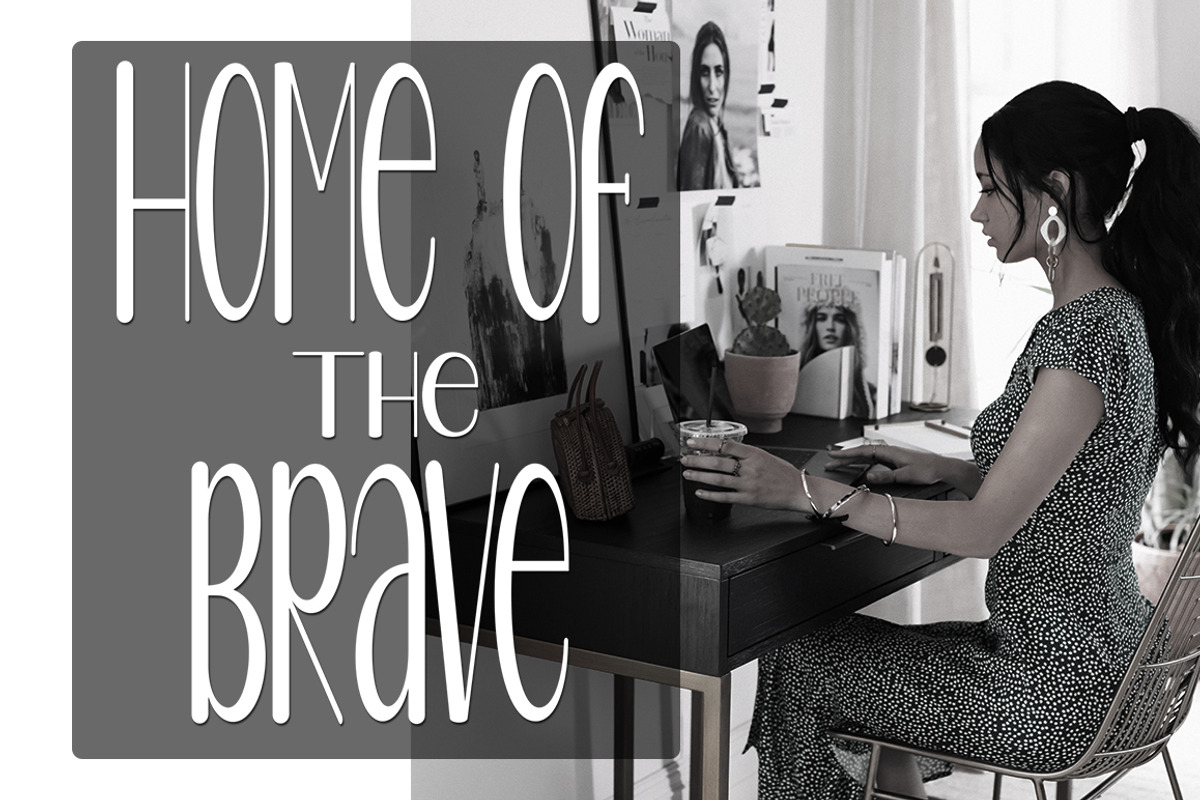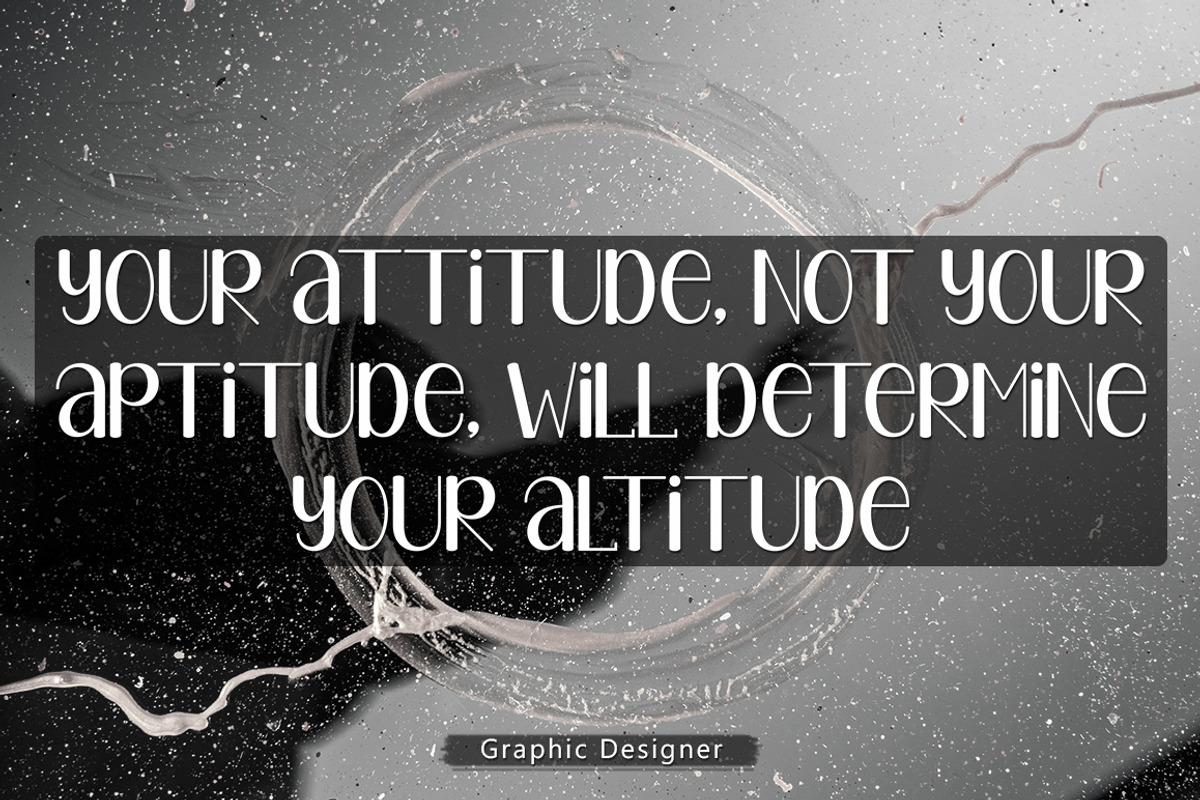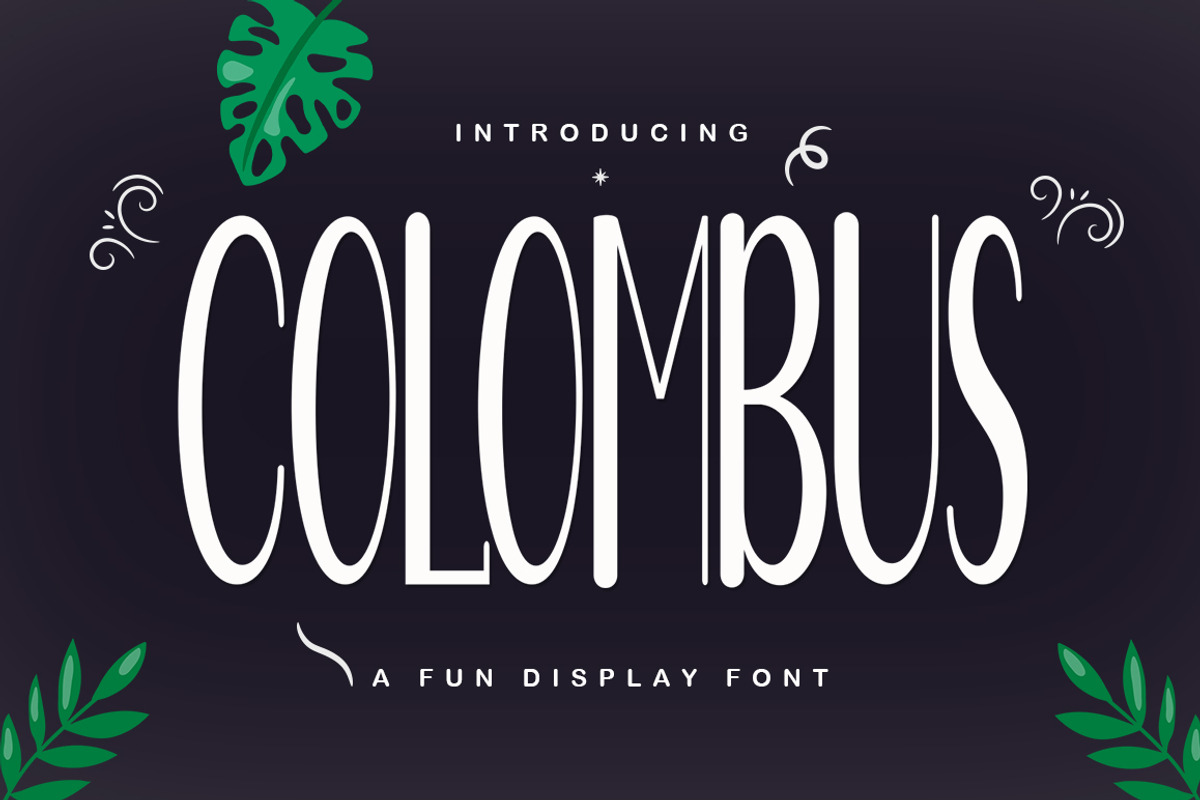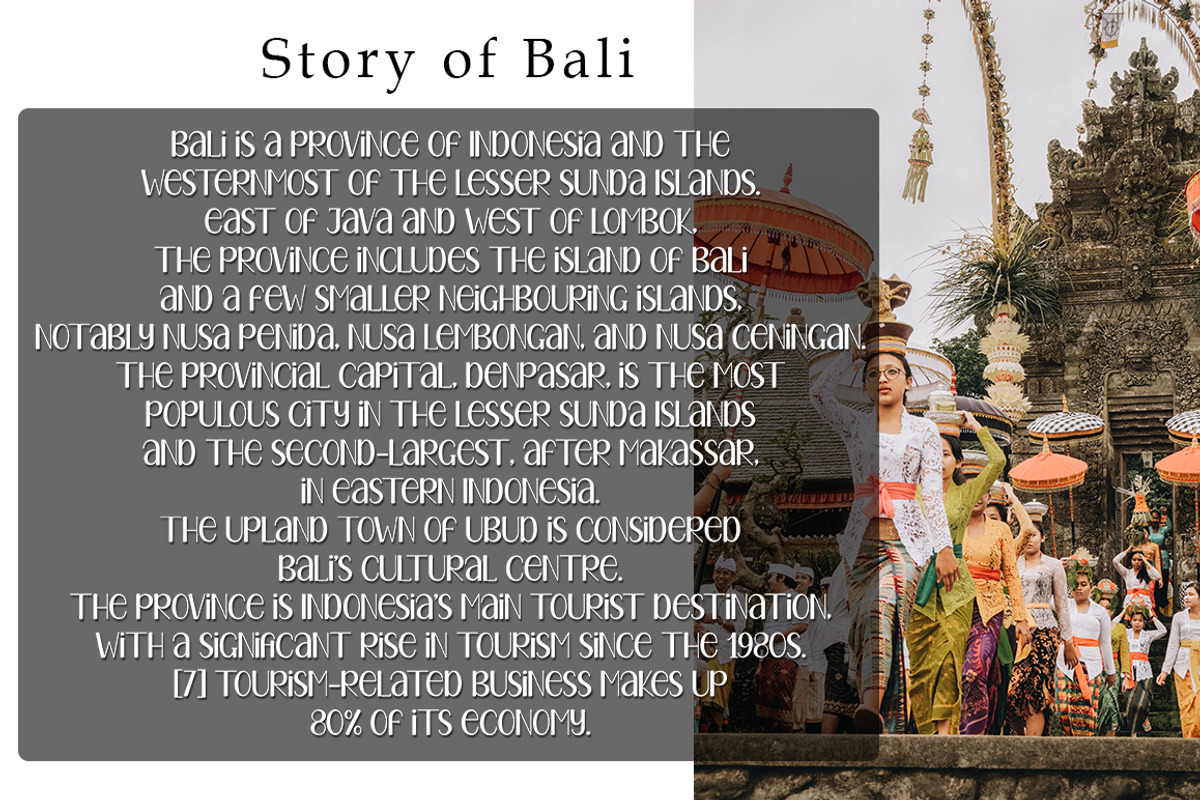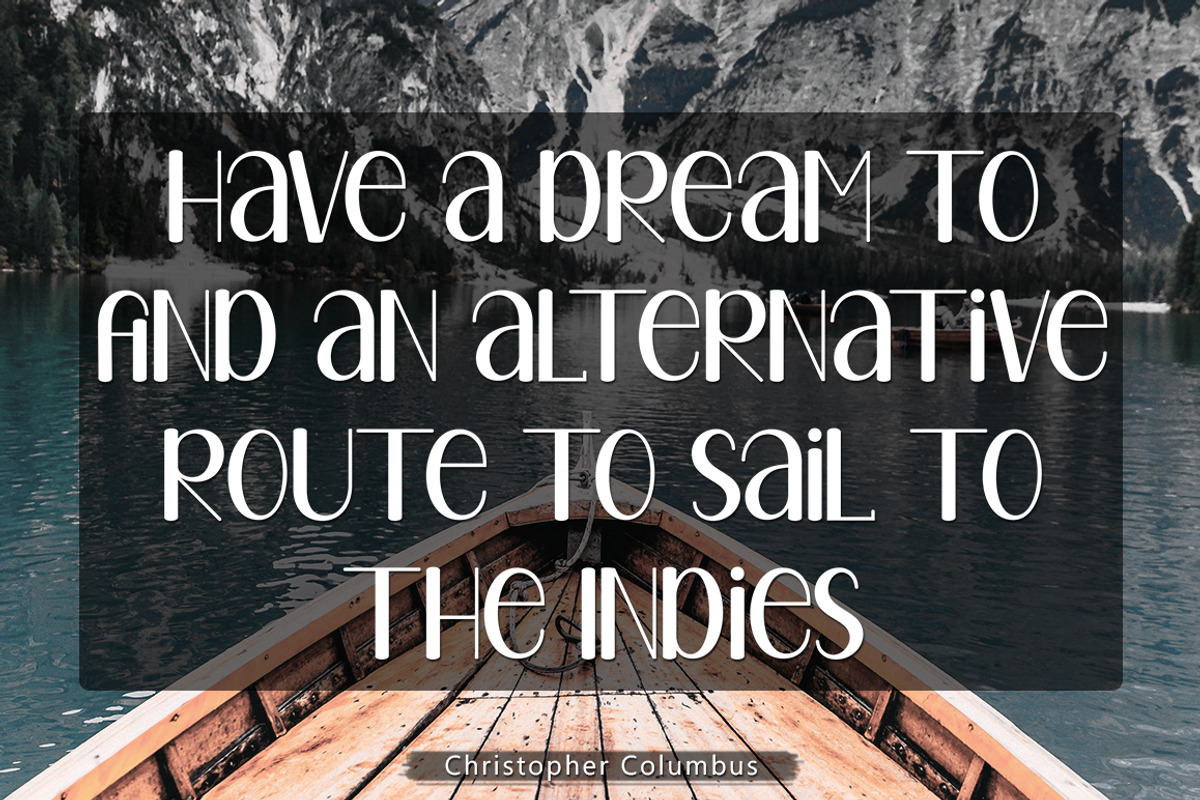
Columbus
Columbus is a handwritten font pair.
Columbus is a simple, adaptable and tall display font. This font is ideal for writing web designs, business cards, or pretty much anything else that requires a unique touch.
This duo is perfect for quotes, titles, blogs, logos, branding, invitations, and more!